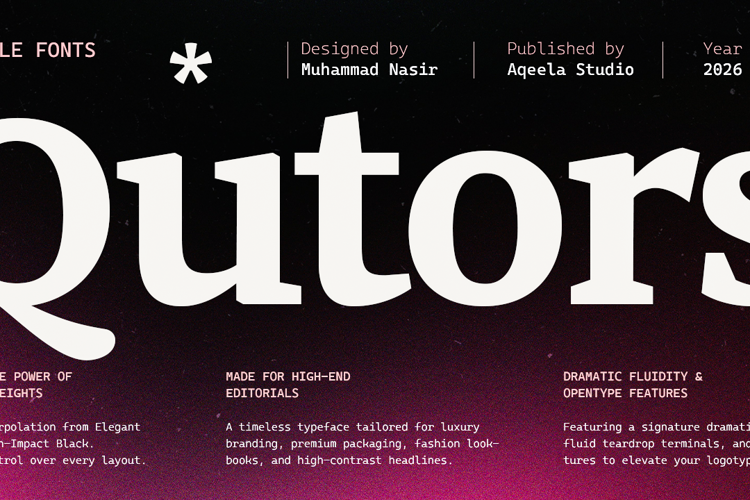
Qutors Light Ext Exp Font
Light Extra Expanded Style
Qutors is a timeless and elegant serif typeface designed by Muhammad Nasir and published by Aqeela Studio. Tailored for high-end editorials, luxury branding, premium packaging, fashion lookbooks, and high-contrast headlines, this font perfectly balances classic sophistication with modern versatility.
Key Features:
Unleash the Power of Variable Weights: Features smooth interpolation ranging from an Elegant Thin to a High-Impact Black, giving you absolute layout control.
Dramatic Fluidity:
Includes OpenType features, a signature dramatic 'Q' tail, fluid teardrop terminals, and smooth ligatures to effortlessly elevate your logotype designs.
Slanted Styles:
Comes with matching slanted variants (from Thin Slanted to Black Slanted) to add dynamic motion and emphasis to your typography.
Whether you are crafting a bold urban billboard or a refined editorial layout, Qutors delivers the flexibility and dramatic flair your designs deserve.